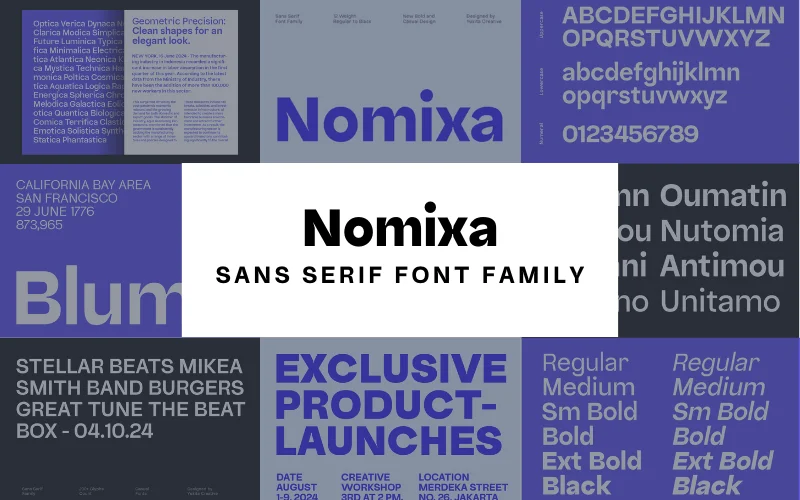
Nomixa is a modern, professionally crafted sans serif font family that balances bold presence with a clean, professional aesthetic. It’s perfect for branding, advertising, packaging, web design, and any project that needs a contemporary typographic statement.
Key Features
- Clean, bold lines with a contemporary look
- Versatile: suited for branding, headlines, packaging, web, and editorial work
- Extensive family: multiple weights and matching italics for cohesive design systems
- Total fonts: 12 (6 weights × Upright + Italic)
- Weights: Regular, Medium, SemiBold, Bold, ExtraBold, Black (each with italic)